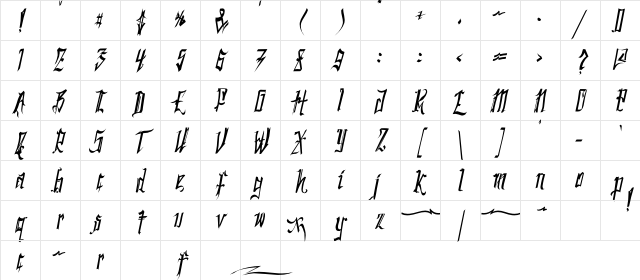
SC Kingston Regular Free Font
SC Kingston Regular
Design Context for SC Kingston
SC Kingston is a composed and adaptable typeface that performs quietly and consistently across a wide range of design contexts.